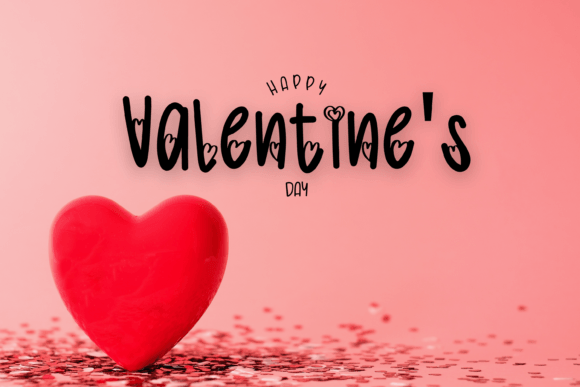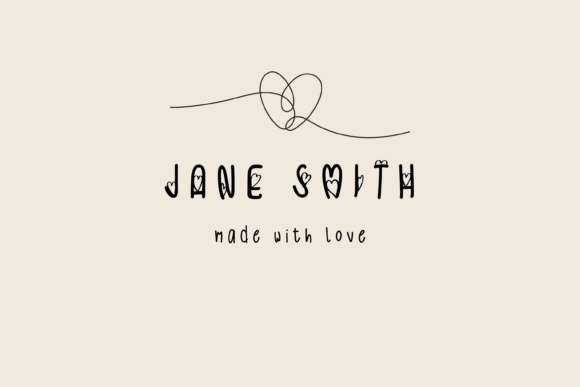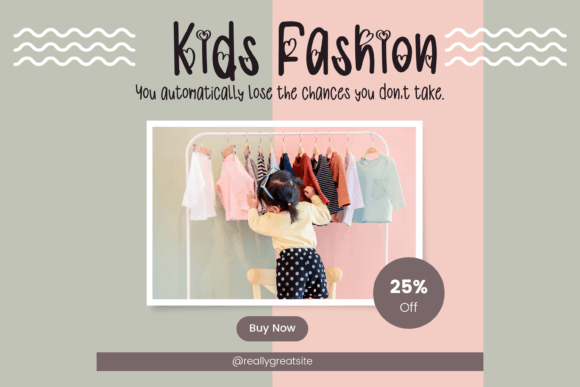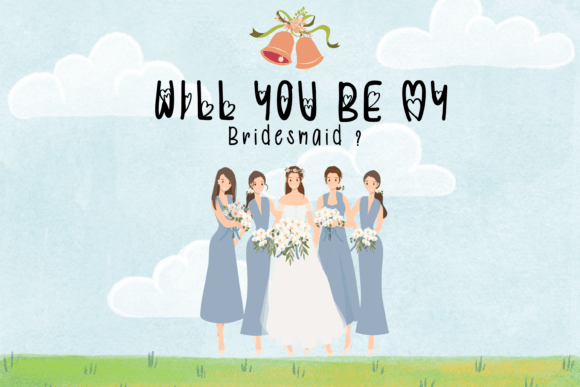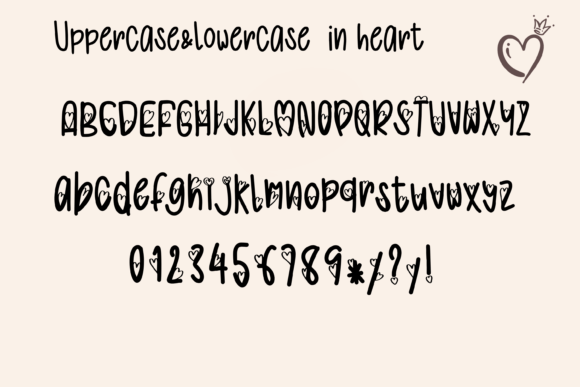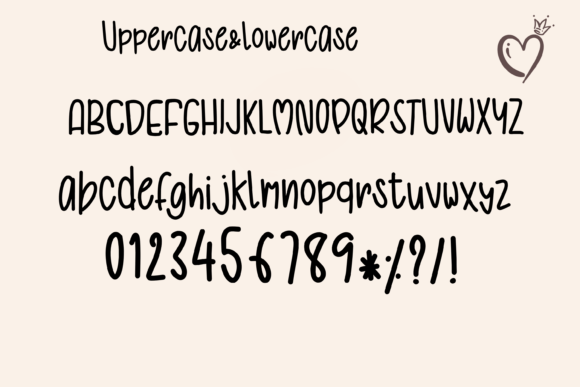
Introduction to In Mind Font Font
Fonts play a crucial role in design, and the In Mind Font font is a typeface that brings both character and versatility to any project. Whether you’re working on a branding project, a website, or a print design, the In Mind Font font offers a unique style that can elevate your work.
In Mind is a cute and lovely decorative font.
It embodies playfulness and authenticity and is the perfect choice for decorations for weddings, parties, or any childrenβs activity projects .
Key Features of In Mind Font Font
Why Choose In Mind Font Font?
The In Mind Font font is more than just a typeface β it’s a design tool that helps you communicate your message with style and clarity. Its unique character set and versatile design make it suitable for a wide range of applications, from elegant invitations to bold headlines.
With its carefully crafted letterforms and balanced proportions, the In Mind Font font ensures readability and visual appeal across all mediums.
What makes In Mind Font font special?
The In Mind Font font stands out with its unique design, exceptional readability, and versatility across various design applications.